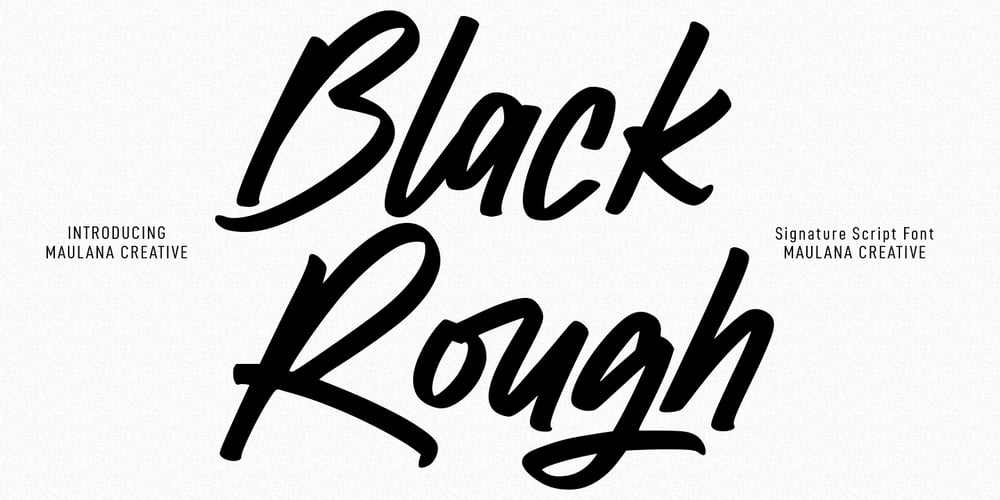
Black Rough
Black Rough font
Black Rough Font Family was designed by Gilang Maulana and published by Maulana Creative. Black Rough contains 1 styles and family package options. Black Rough Script Font is a casual signature script font. With semi bold consist stroke, fun character with a bit of ligatures and alternates. To give you an extra creative work. Black Rough Script Font support multilingual more than 100+ language. This font is good for logo design, Social media, Movie Titles, Books Titles, a short text even a long text letter and good for your secondary text font with sans or serif. Make a stunning work with Black Rough Script Font.Cheers,Maulana Creative